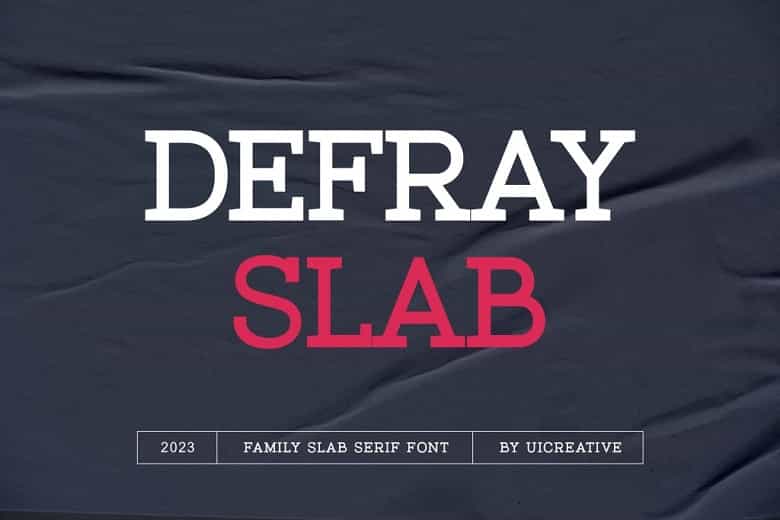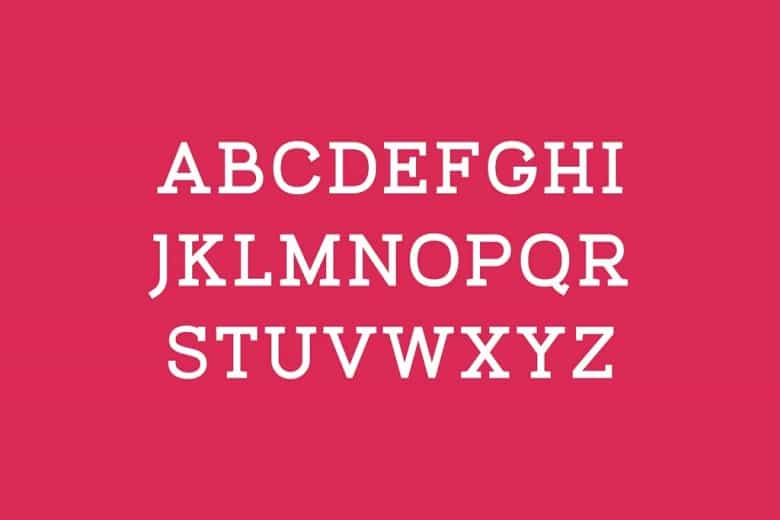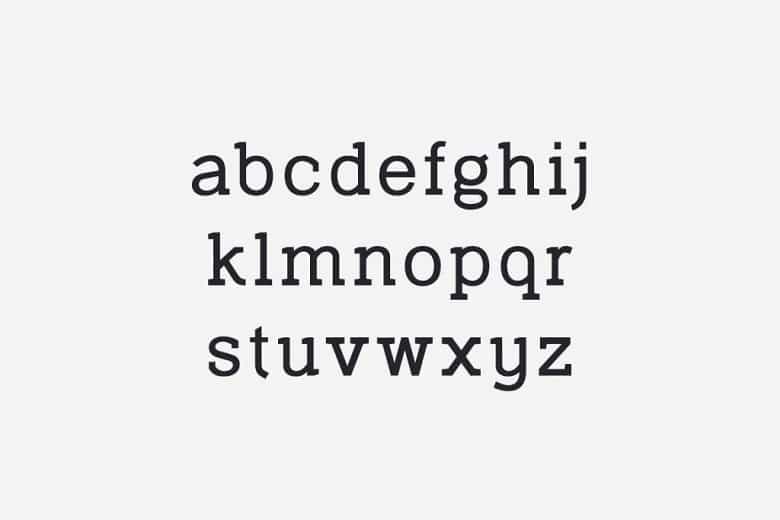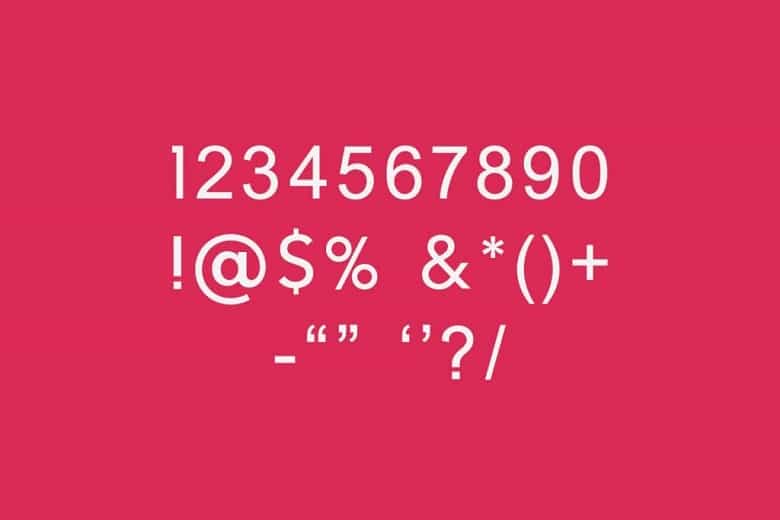
Defray Slab is a modern slab serif font which gives a classy, elegant, and stylish look. This font is well suitable for any kind of projects including stationery, logo, wedding, typography quotes, magazine or book covers, website headers, branding and many more.